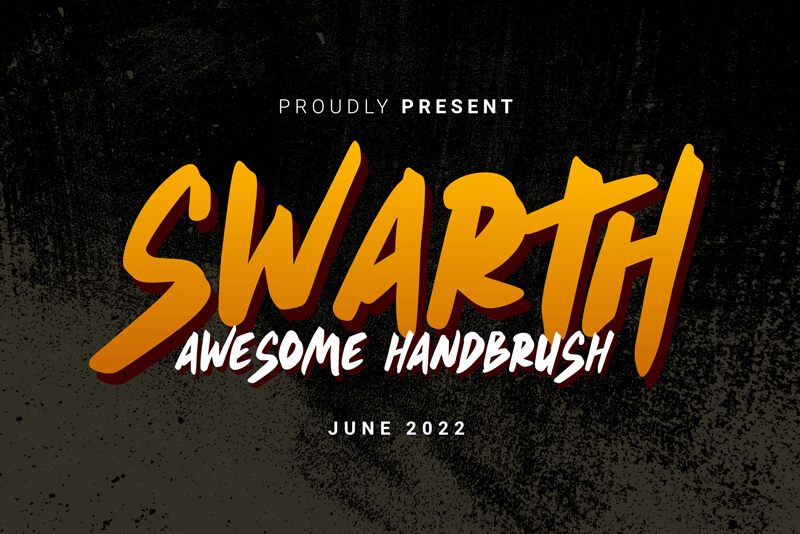
Swarth
Swarth, designed by DumadiStyle, is a bold brush font that exudes confidence and creativity.
Its thick, expressive strokes make it perfect for eye-catching headlines and attention-grabbing logos. With its unique style, Swarth adds a touch of artistic flair to any design project. Whether you're working on a fashion brand's promotional materials or developing a poster for an upcoming music festival, this bold brush font will bring your creative vision to life.
Stand out from the crowd with the captivating charm of Swarth.